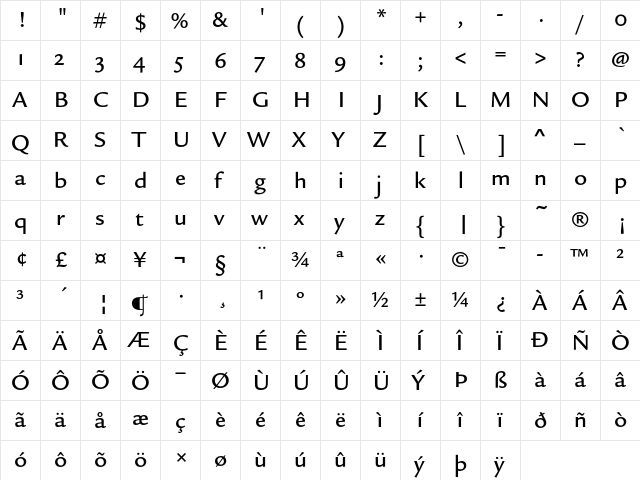
Legacy Sans ITC Medium OS Font Preview
Legacy Sans ITC Medium OS
Design Context for Legacy Sans ITC Typeface
Legacy Sans ITC offers clean, dependable letterforms without strong stylistic allegiance, making it a practical choice for designers who need flexibility.
Pro Tip: Pair Legacy Sans ITC with a font of contrasting weight or personality to build a more expressive typographic hierarchy.